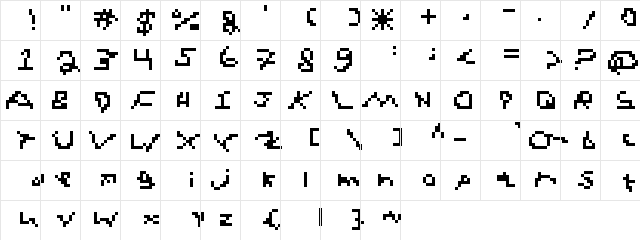
messy writing Regular
Design Context for messy writing Typeface
messy writing is a composed and adaptable typeface that performs quietly and consistently across a wide range of design contexts.